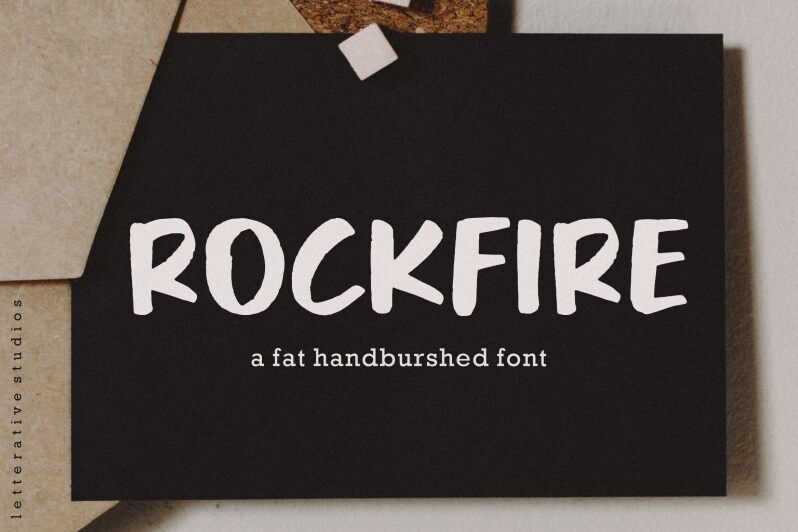
Rockfire
Rockfire, a dynamic creation by Letterative Studio, embodies the raw energy and boldness of its brush style roots. Characterized by its robust weight, this font captures the essence of hand-painted signage with a modern twist. The deliberate imperfections and fluidity in its strokes lend an authentic, artisanal charm that is both eye-catching and engaging.
The aesthetic appeal of Rockfire is undeniable; its vigorous yet controlled characters are designed to make a statement. This typeface boasts versatility that can enhance various creative projects — from branding to poster design, from music album covers to edgy apparel graphics. Its ability to convey motion and emotion makes it an ideal choice for designers seeking to inject personality and impact into their work.
Rockfire's suitability stretches across mediums where a commanding presence is desired. Its style resonates particularly well with themes that embrace adventure, passion, or artistry. Whether employed in digital contexts or print, Rockfire stands out as a distinctive choice for those looking to push the boundaries of conventional typography.